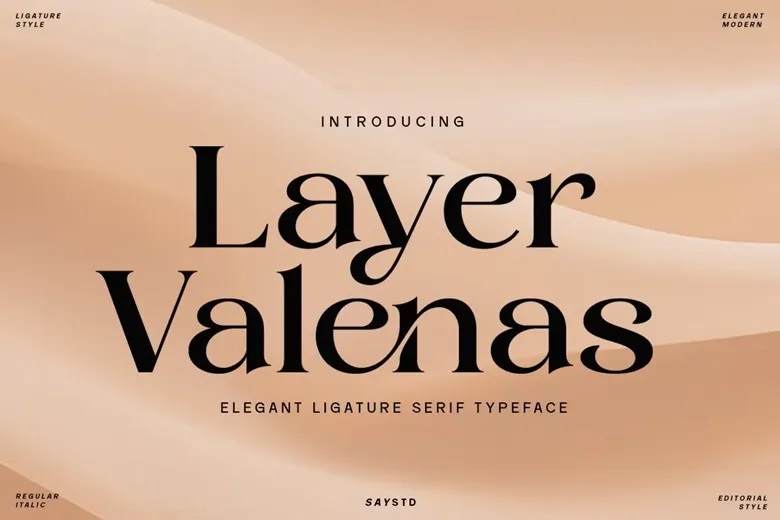
Layer Valenas Font
Layer Valenas is a ligature serif font designed to add a sense of luxury and modern style to your projects. Its smooth curves, bold contrasts, and unique ligatures help create a refined look that feels both premium and editorial. Each letter is made to give brands a polished, confident appearance.
This typeface works well for luxury branding, fashion magazines, cosmetic packaging, wedding invitations, logos, boutique brands, magazine covers, jewelry brands, photography watermarks, social media posts, and stylish product packaging.